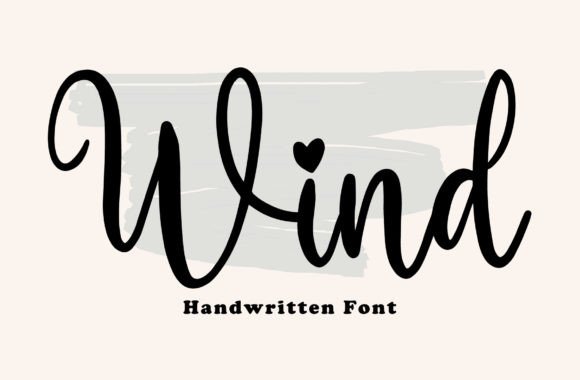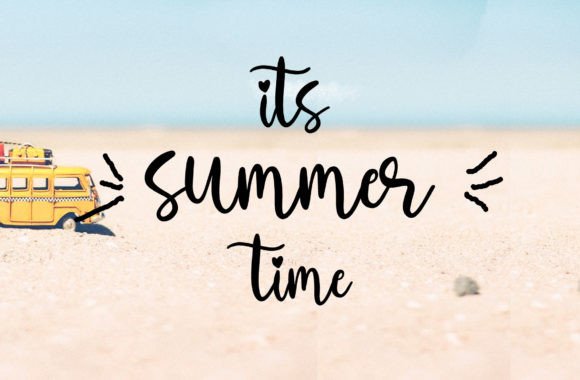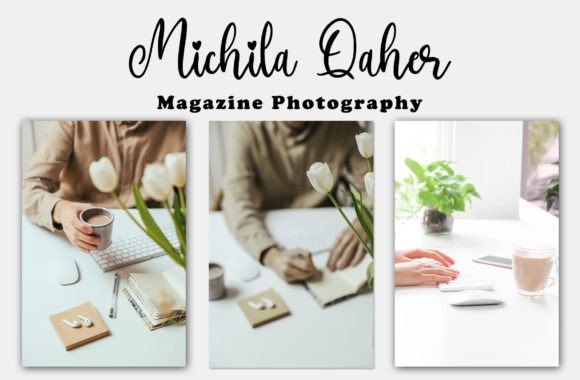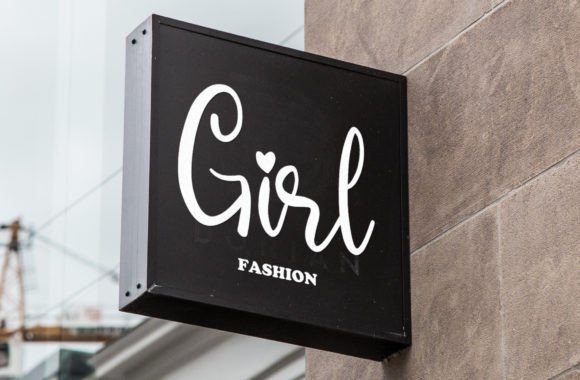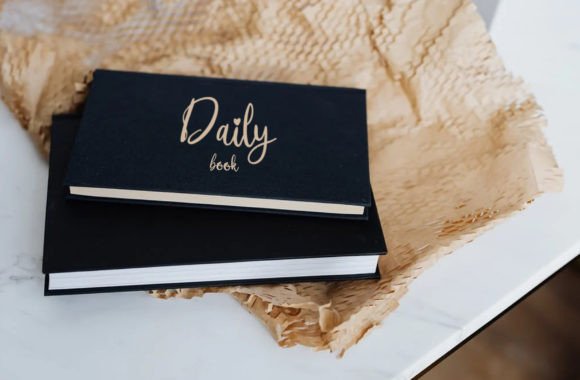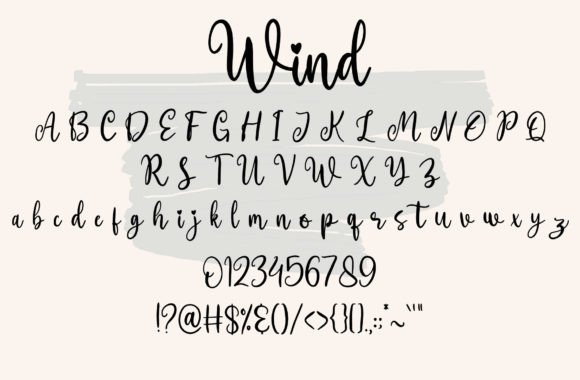
Wind Font
About Wind Font
Introducing Wind, a sweet and adorable handwritten font that captures hearts with its incredible versatility. Fall in love with its charming style and use it to create a myriad of beautiful projects, from enchanting wedding invitations to delightful shirt designs, stunning stationary art, eye-catching social media posts, and beyond!
The sweetness and cuteness of Wind make it a perfect choice for conveying a warm and personal touch in various design contexts. Its handwritten charm adds a layer of authenticity, making your projects feel heartfelt and genuine.
Picture Wind gracing wedding invitations, where its adorable style enhances the romantic atmosphere of the celebration. Envision it on shirt designs, turning everyday apparel into charming statements. Imagine it on beautiful stationary art, creating a whimsical and artistic touch to your written correspondence.
The versatility of Wind extends to eye-catching social media posts, where its cute and sweet aesthetic can captivate your audience. Whether you’re sharing quotes, announcements, or showcasing products, Wind ensures your content stands out with a delightful and approachable flair.
In summary, Wind is more than just a font; it’s a creative companion that brings sweetness and cuteness to your projects. Its versatility allows it to seamlessly adapt to a range of design applications, making it a delightful addition for designers working on wedding materials, apparel, stationary, social media content, and more. Let Wind be the charming and handwritten element that adds warmth and personality to your creations!